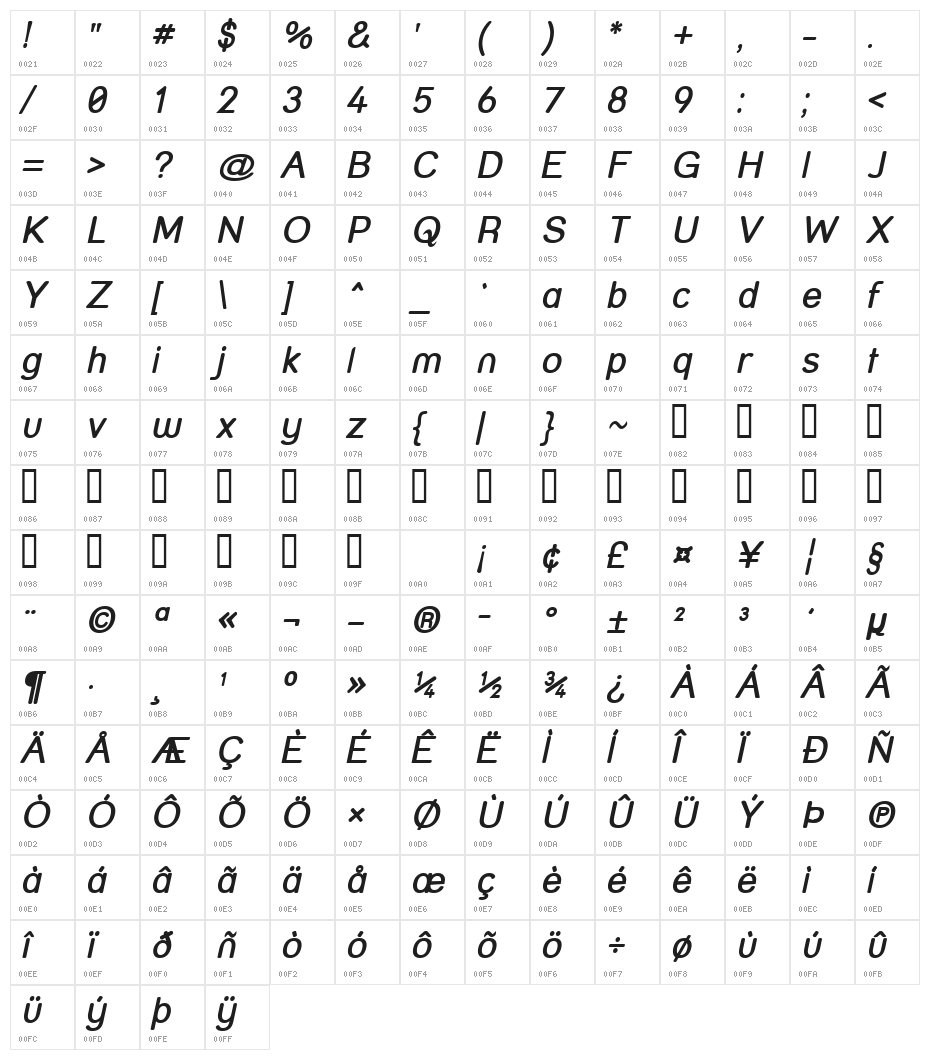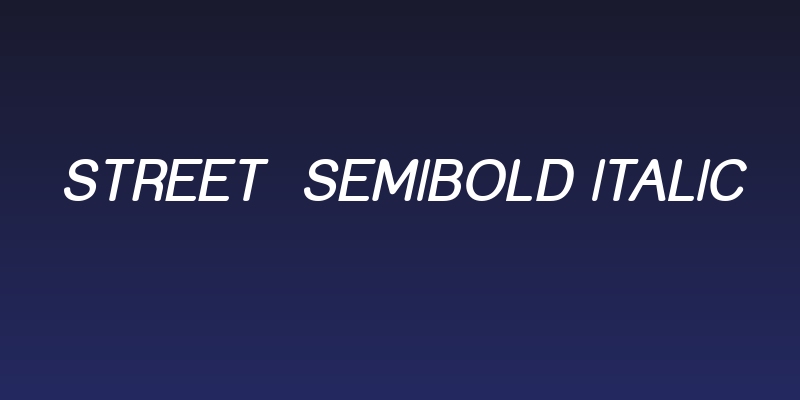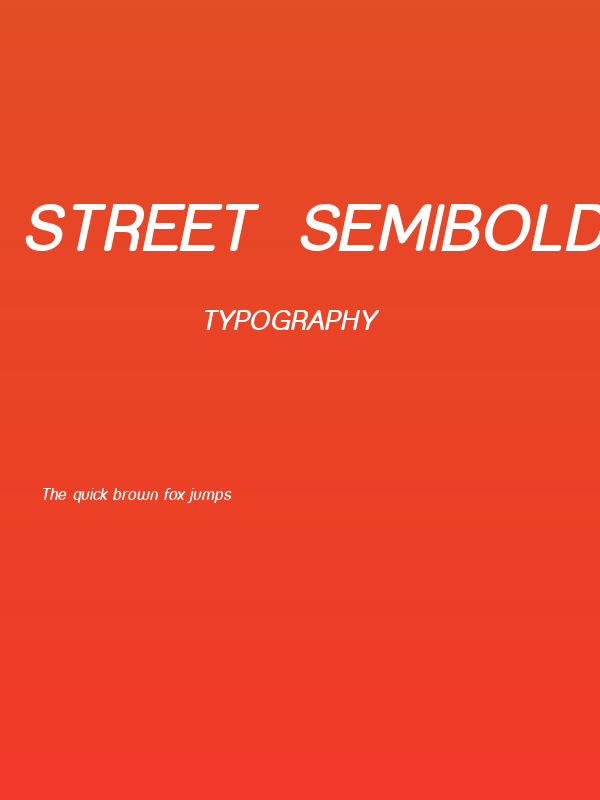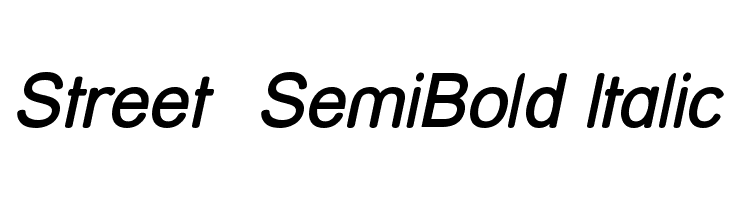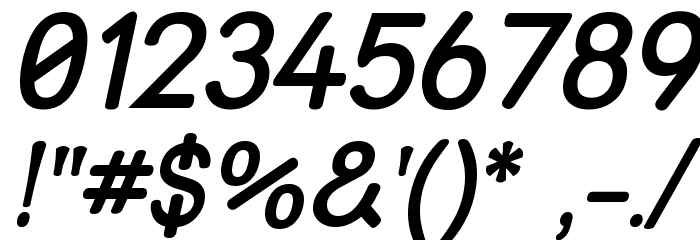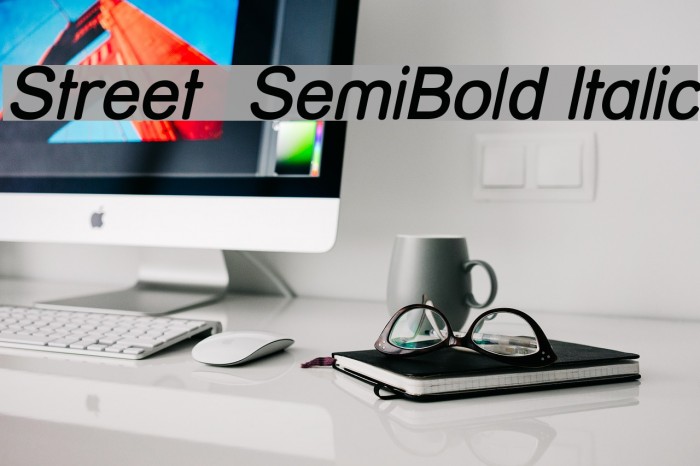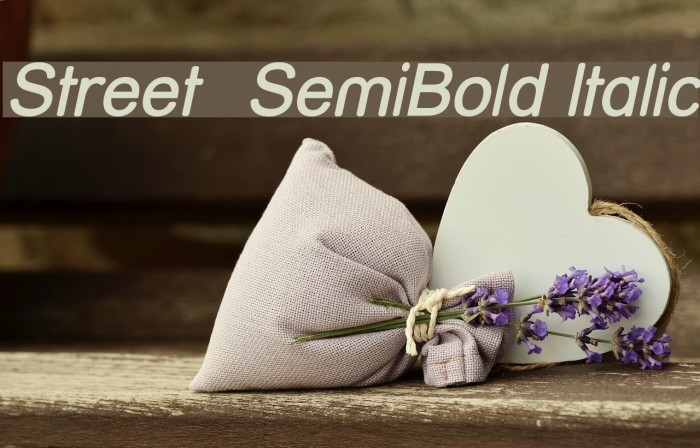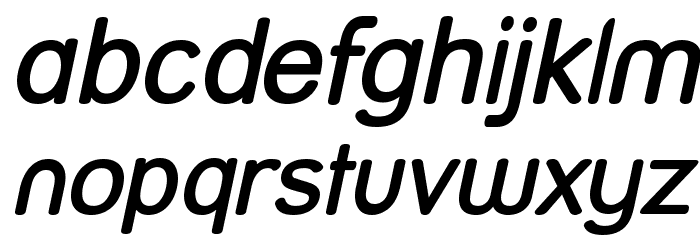
Street SemiBold Italic Font
Street SemiBold Italic Description
This font features a sleek, modern design with a semi-bold weight that provides a strong presence without overwhelming the reader. The italic style adds a dynamic and forward-leaning appearance, making it suitable for contemporary design projects. Its sans-serif nature ensures clean lines and a minimalist aesthetic, while the consistent stroke width offers a uniform look across all characters. The font maintains a balanced character spacing, ensuring readability and clarity. Its versatility allows it to be used in various contexts, from digital interfaces to print media.
| Use Case | Headlines, Body text, Logos |
| Proposed Projects | Ideal for branding, advertising, digital interfaces, and modern editorial design. |